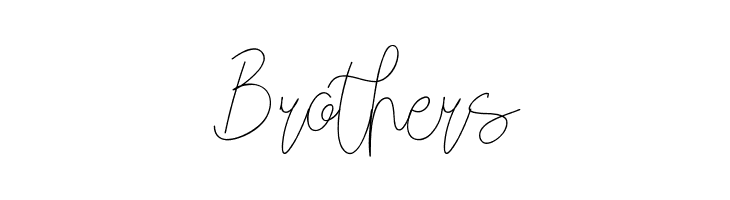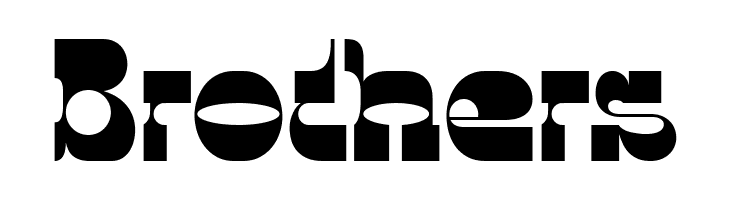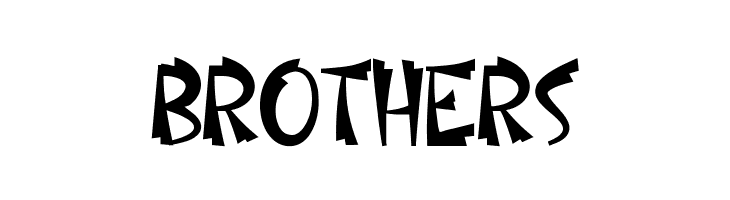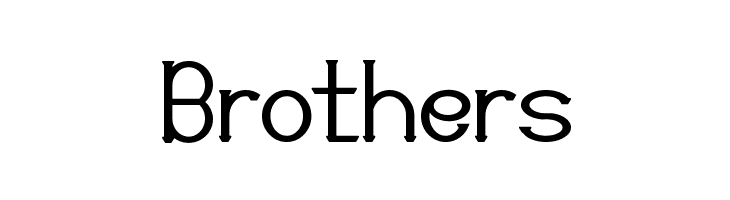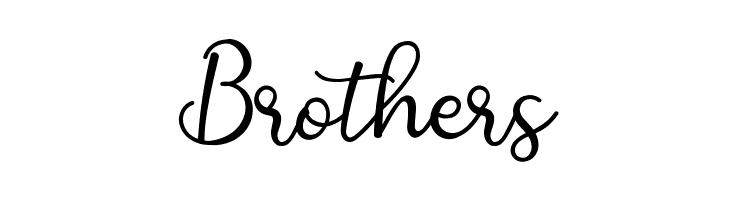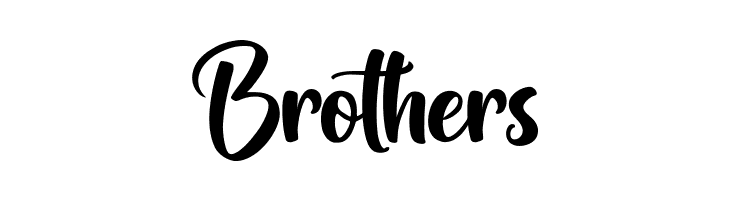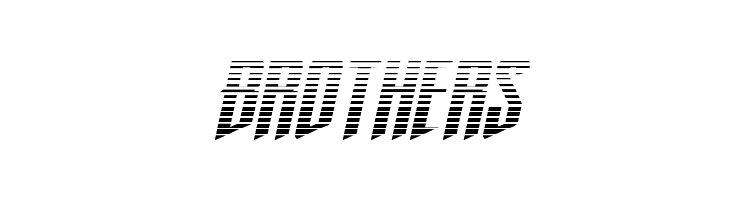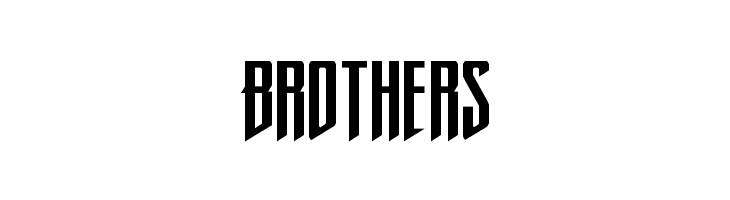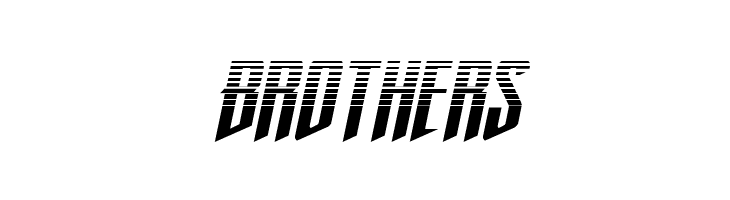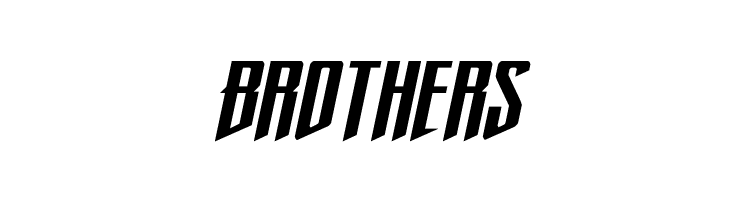
An elegant, flowing script font with graceful curves and a dynamic slant.
A playful, handwritten font with rounded characters and consistent stroke width.
A graceful, handwritten cursive font with elegant, flowing lines.
A flowing, cursive font with elegant, elongated strokes and a modern twist.
A graceful script font with fluid, connected strokes and elegant curves.
A bold, slanted font with high contrast and dynamic style.
A whimsical and elegant script font with flowing, elongated letterforms.
An elegant script font with thin lines and graceful curves, perfect for sophisticated designs.
A modern serif font with bold, elegant characters and rounded edges.
A bold, angular font with a modern and dynamic style.
A bold, 3D decorative font with angular, geometric letters and strong outlines.
A bold, 3D italic font with a modern, dynamic style.
A bold, condensed font with sharp, angular edges for a modern, powerful look.
A bold, condensed, and italic font with sharp angles and dynamic style.
A bold, angular font with a dynamic and energetic style.
A bold, italic, and expanded font with a dynamic and futuristic style.
A bold, gradient-striped font with a modern, dynamic style.
A bold, italicized font with a striped gradient effect for a modern, dynamic look.
A bold, italic font with a dynamic and futuristic style.
A bold, angular font with a dynamic and energetic slant.
A bold, italicized font with high contrast and a dynamic, condensed style.
A bold, left-leaning font with sharp angles and a dynamic style.
A bold, italicized font with a dynamic and angular design.
A bold, italic font with sharp angles and a dynamic style.
A bold, angular font with a dynamic, modern style.
A bold, two-tone font with a futuristic and dynamic style.
A bold, italicized font with a two-tone effect and a futuristic, energetic style.
A bold, italic font with a dynamic and futuristic style.
A bold, geometric font with circular cutouts and a modern aesthetic.
A bold, outlined font with a retro, three-dimensional look.
A bold, edgy font with sharp, angular characters and a dynamic style.
A bold, geometric font with high contrast and a modern, dynamic style.
A rugged, distressed font with a vintage western feel.
A bold, expressive script font with a hand-drawn, cursive style.